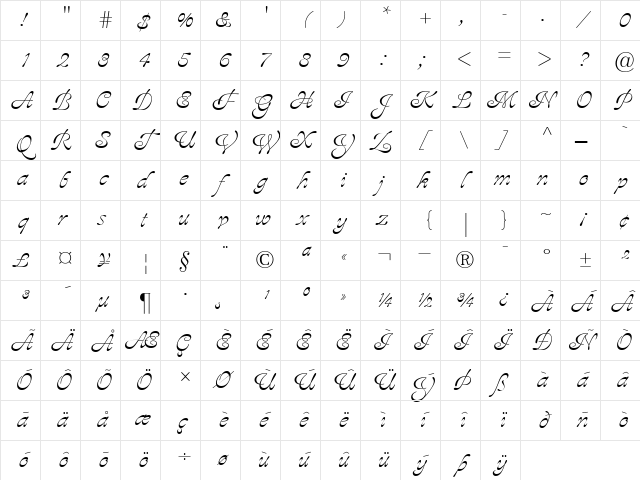
Aja RomanItalic
Style: RomanItalic
Design Context for Aja
Aja is a composed and adaptable typeface that performs quietly and consistently across a wide range of design contexts. The slanted form adds forward momentum and visual energy.
Pro Tip: Use Aja for emphasis, pull quotes, and subheadings where its slanted energy can add rhythm to the layout.